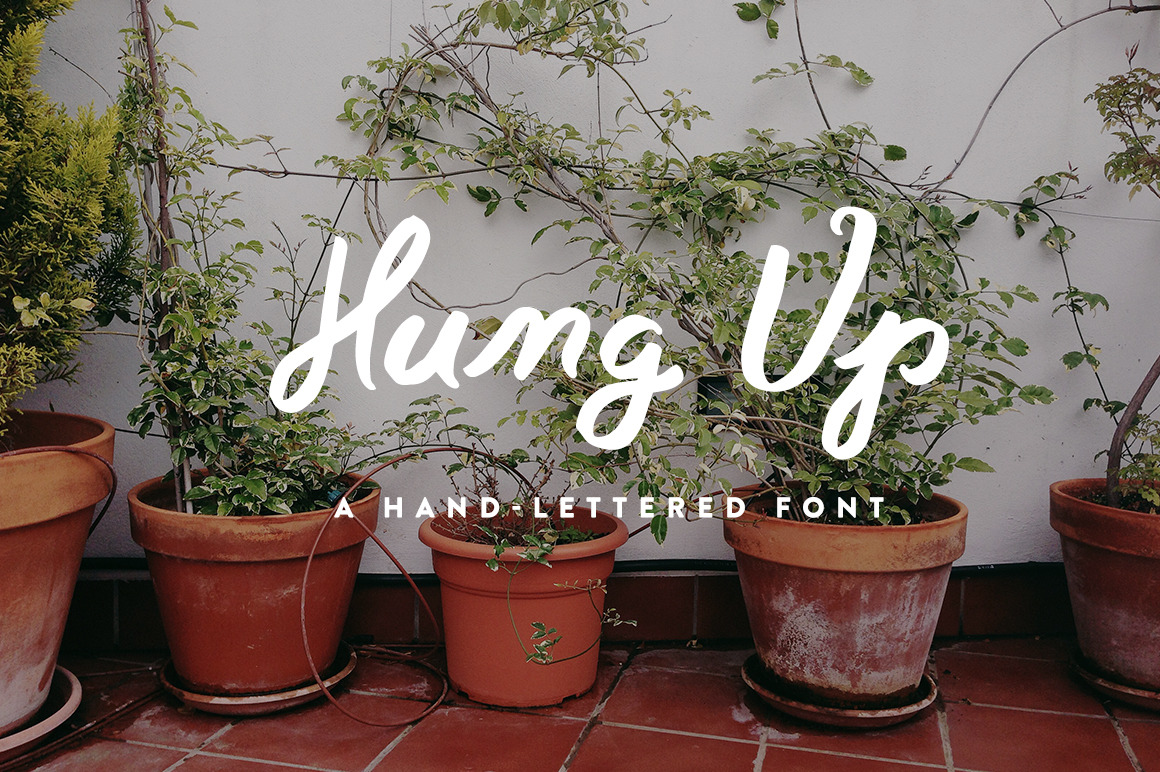
Hung Up - A Script Font
A simple script font perfect for using for blog content, social graphics, and on personal projects. There is no punctuation in this font currently. If the demand rises for it, it will be added.